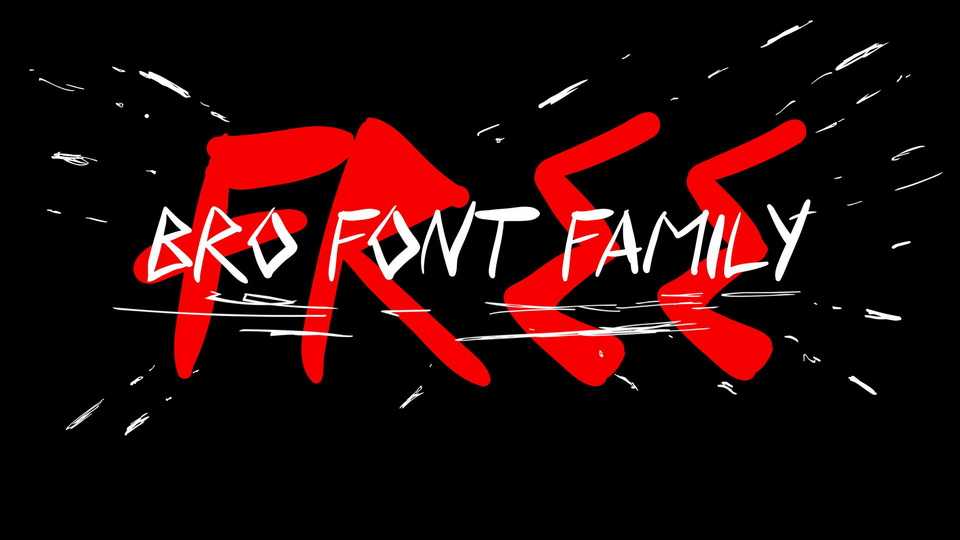
Download Bro font, an authentic hand lettered brush typeface with bold and chunky look ready to make a big impression. Bro font is perfect for posters, logos, handwritten quotes, product packaging and more.
Designer: Pavel Gridasov